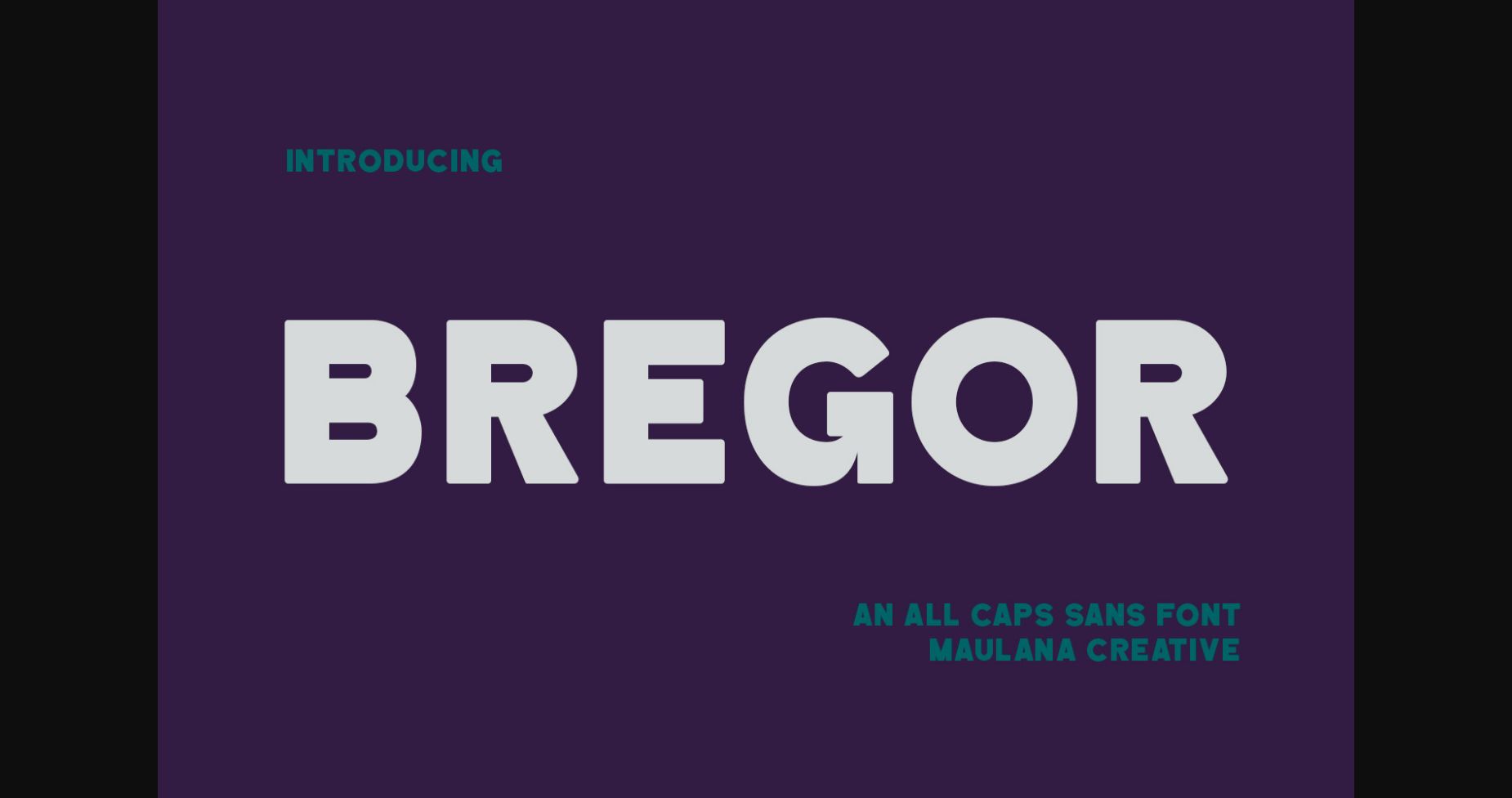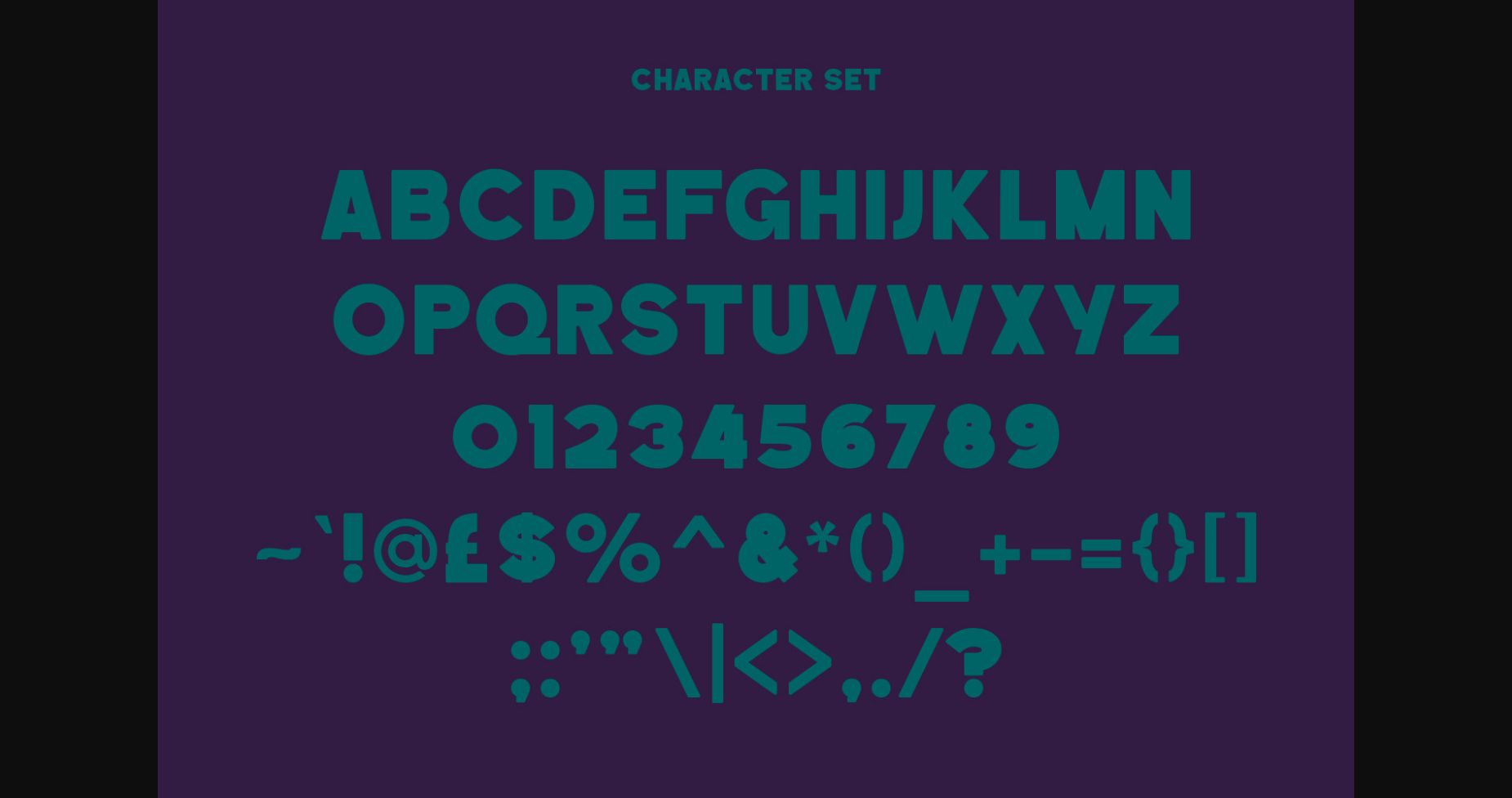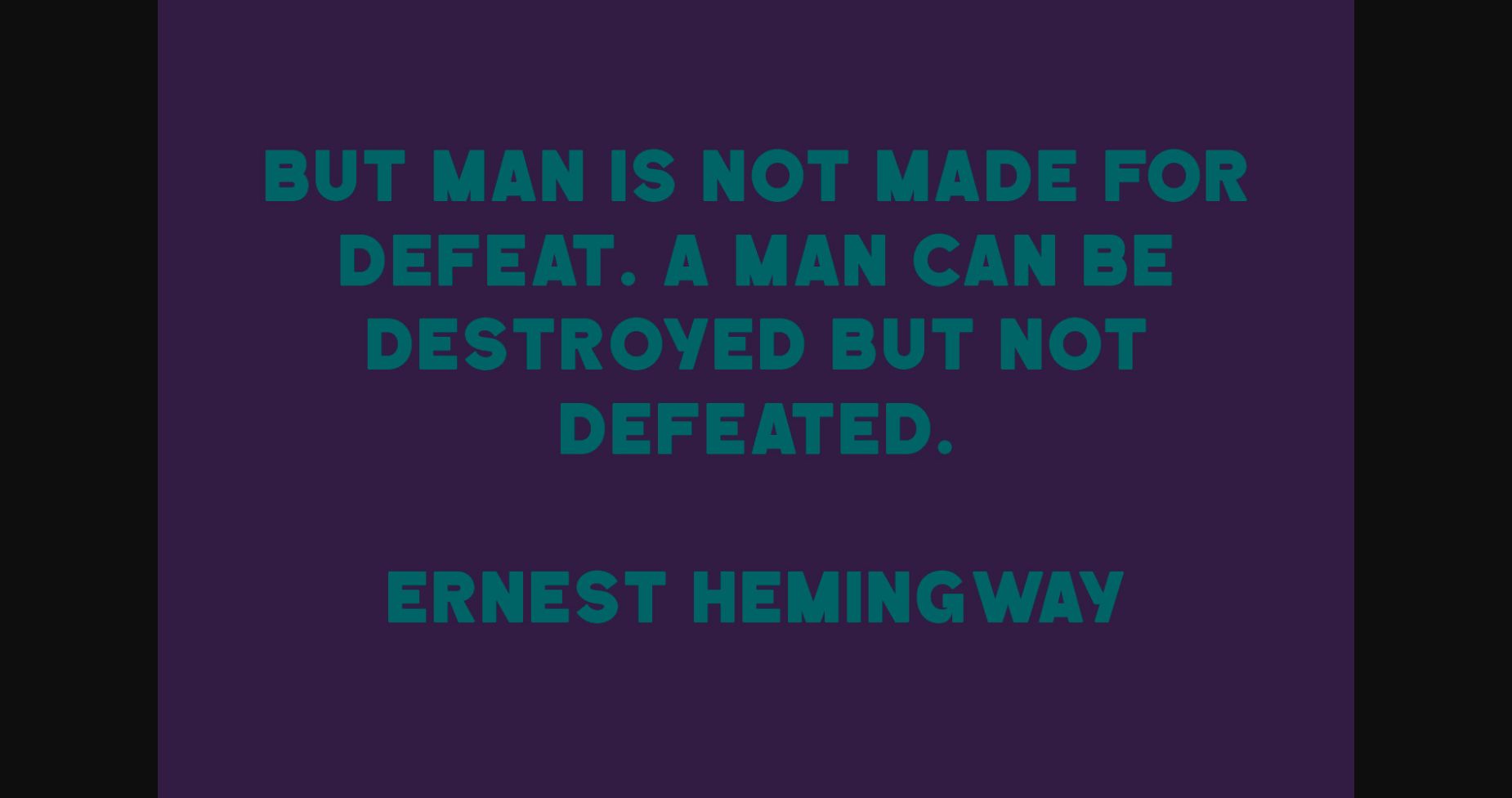
About Bregor Font
Bregor is a strong all-caps sans serif display font. Whether you’re using it for crafts, digital design, presentations, or making greeting cards, this font has the potential to become your favorite go-to font, no matter the occasion!